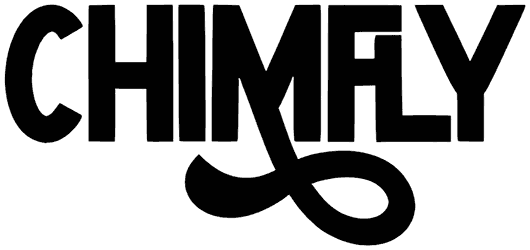
Chimfly Font
Chimfly font has that playful hand-drawn energy that makes a headline feel light, weird, and instantly more fun. Its uneven shapes carry a cheerful rhythm, almost like the letters were sketched for a kids’ show, snack label, or sticker sheet before anyone tried to make them behave. That little bit of wobble is exactly where the charm lives.
Use Chimfly font for children’s books, toy packaging, school flyers, birthday invites, playful logos, comic titles, or cute social media graphics. Add bright colors, chunky outlines, and simple doodles, and the whole design starts flying around with personality.